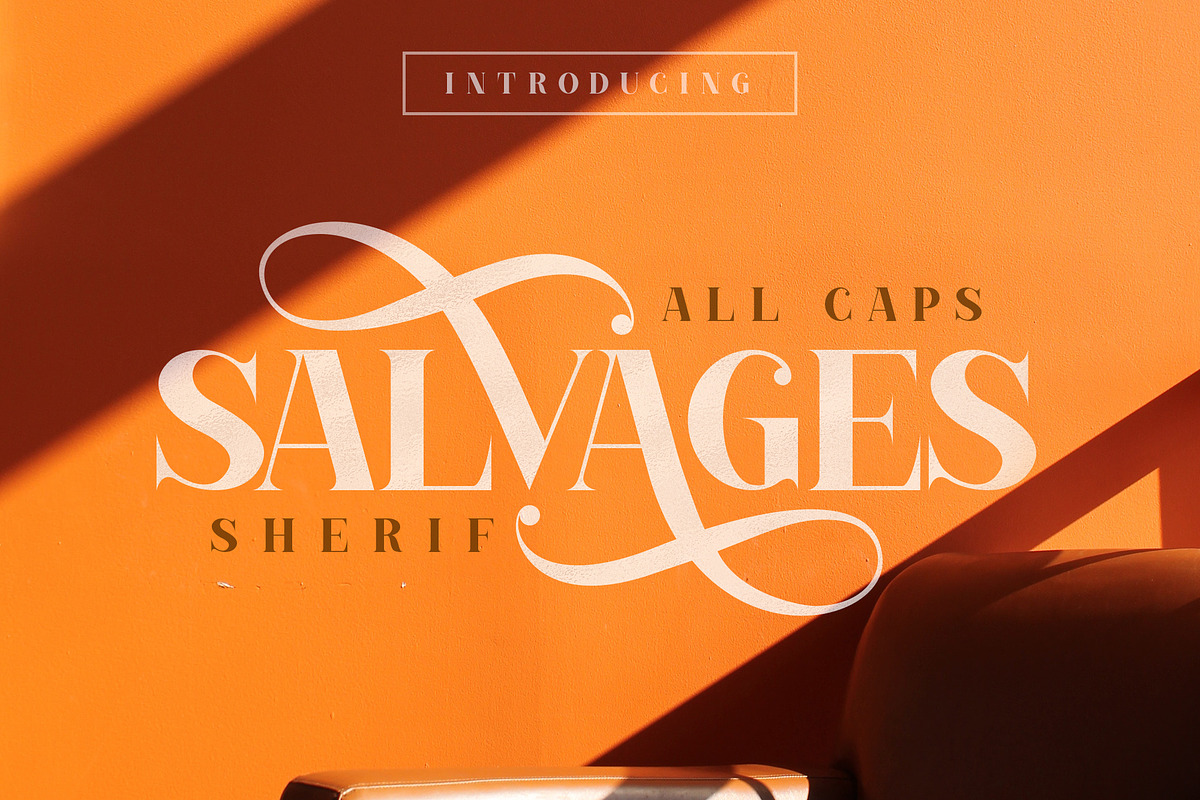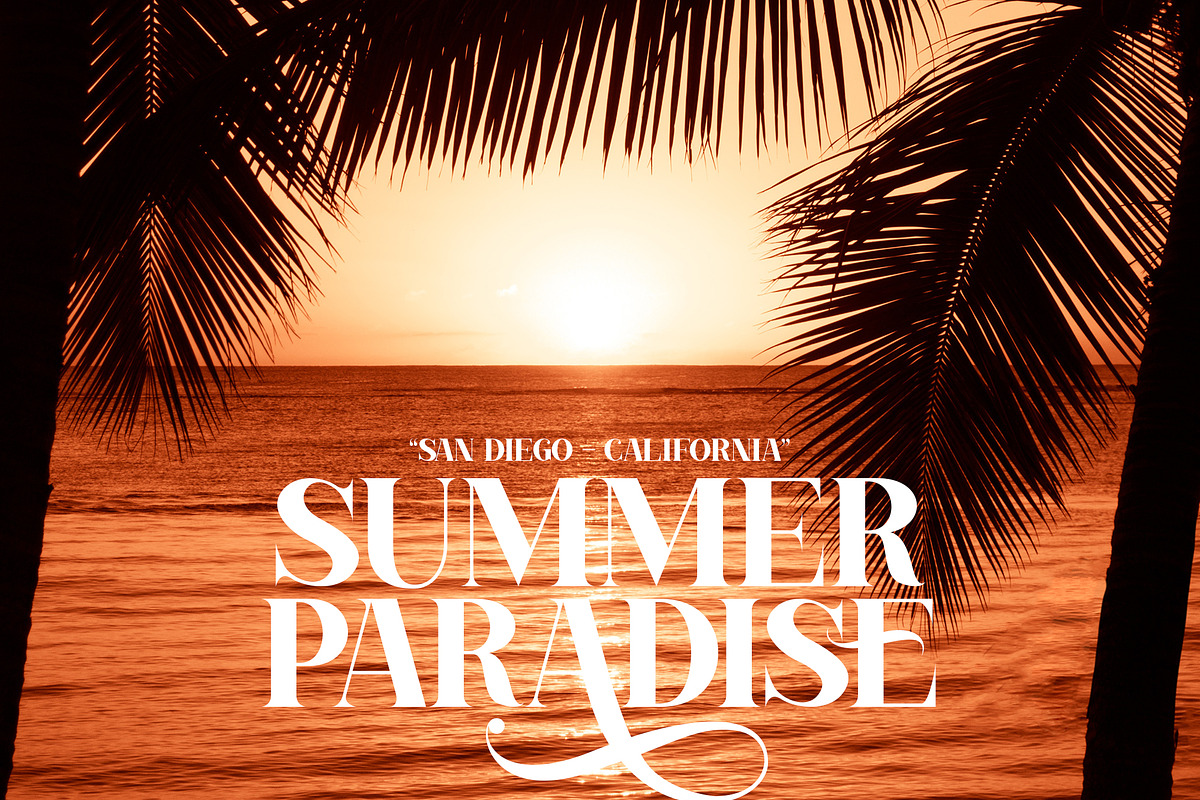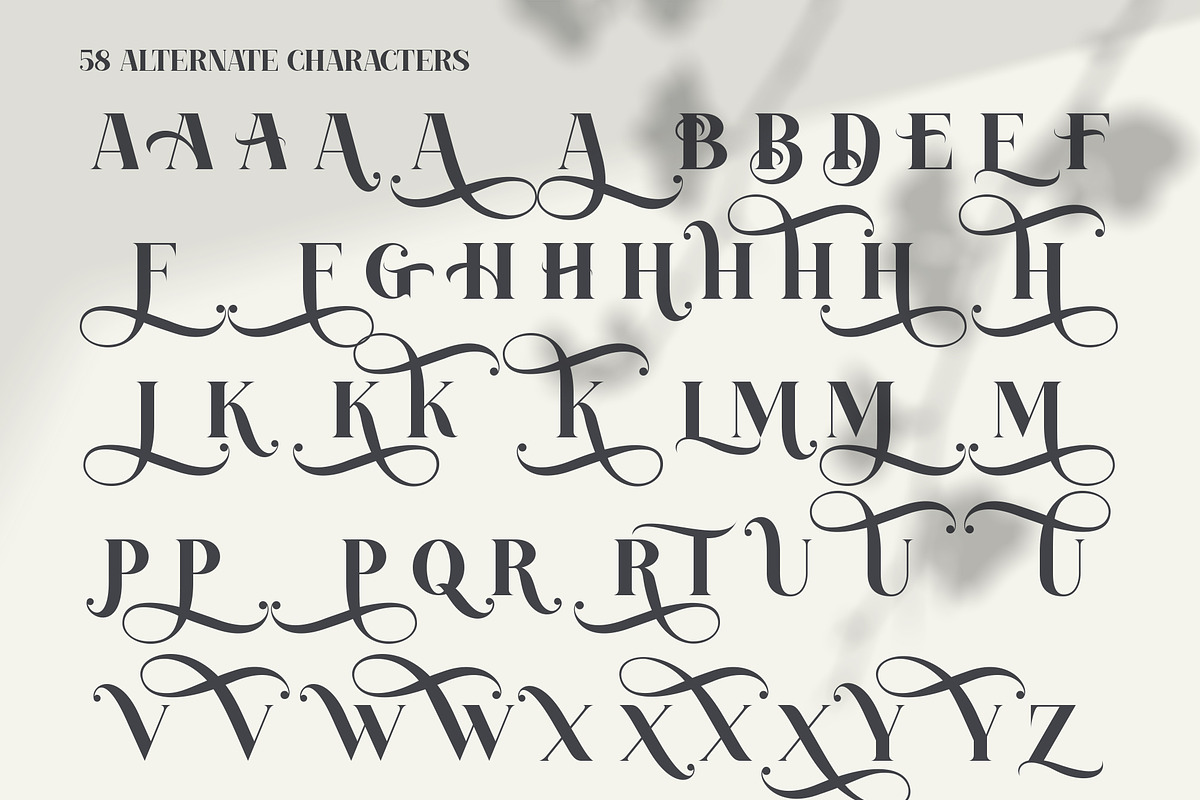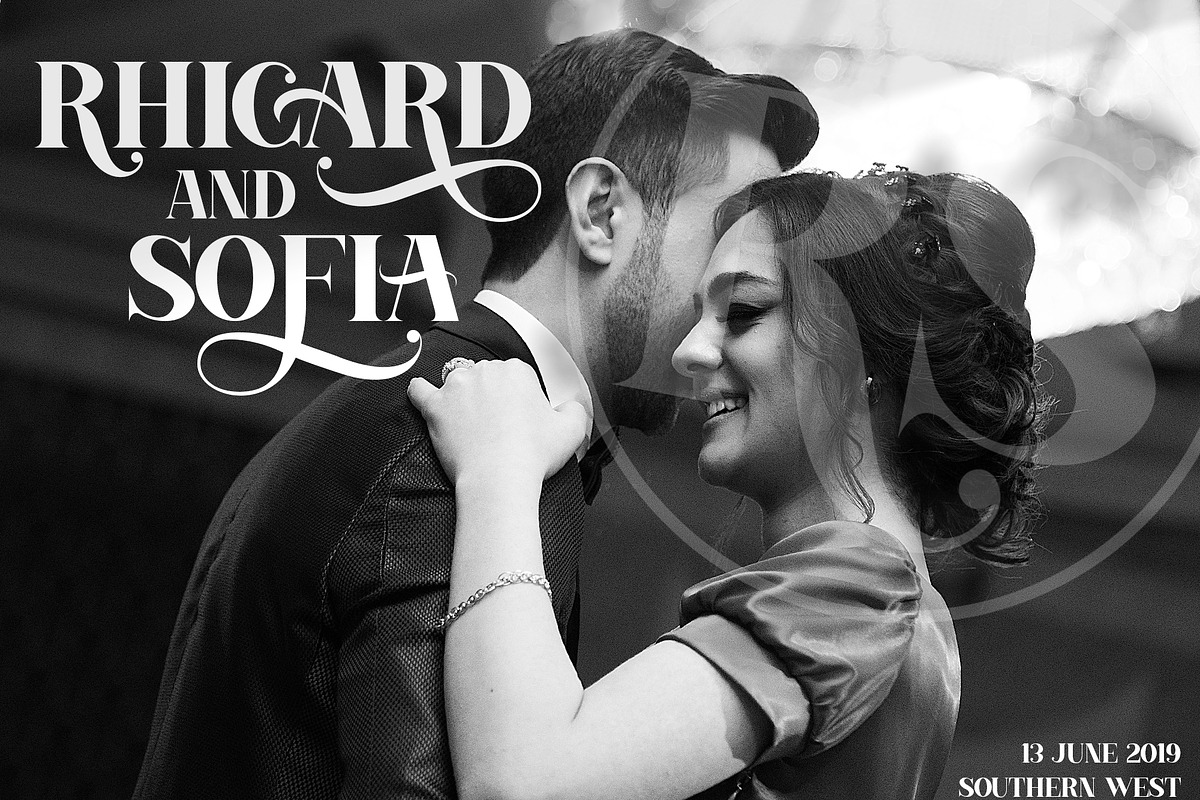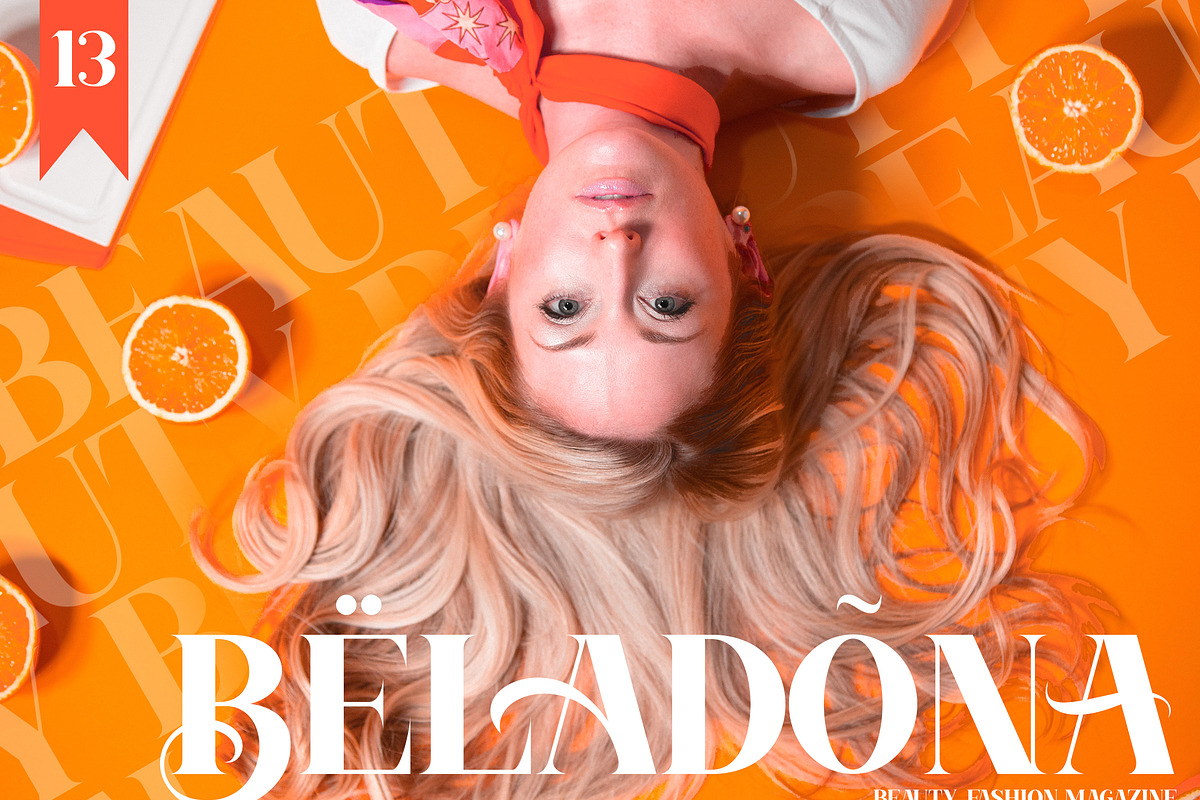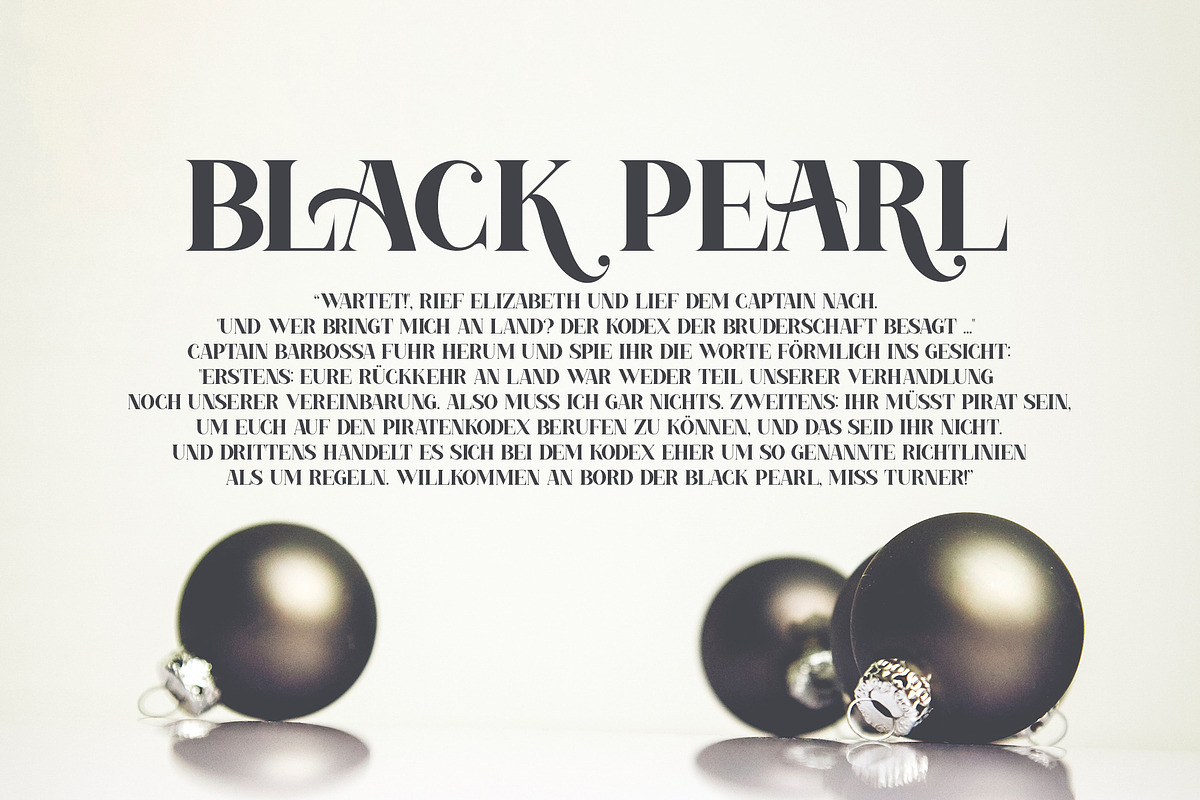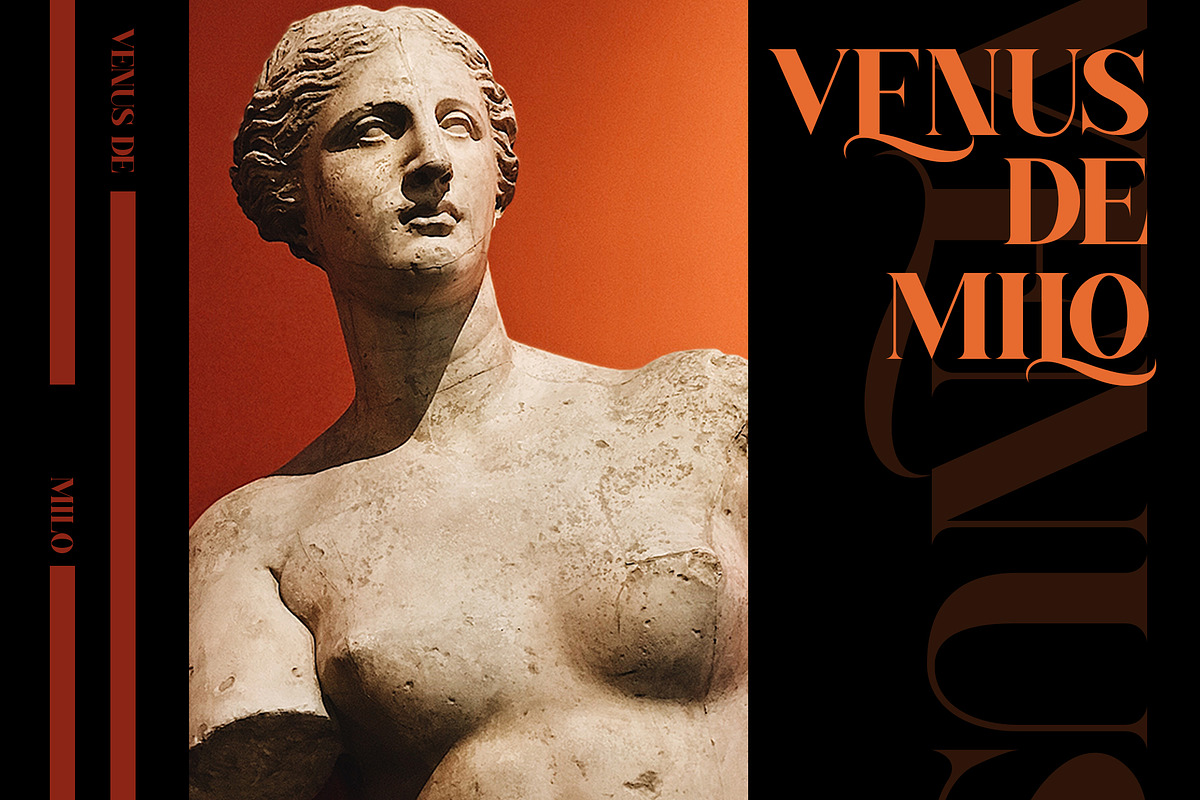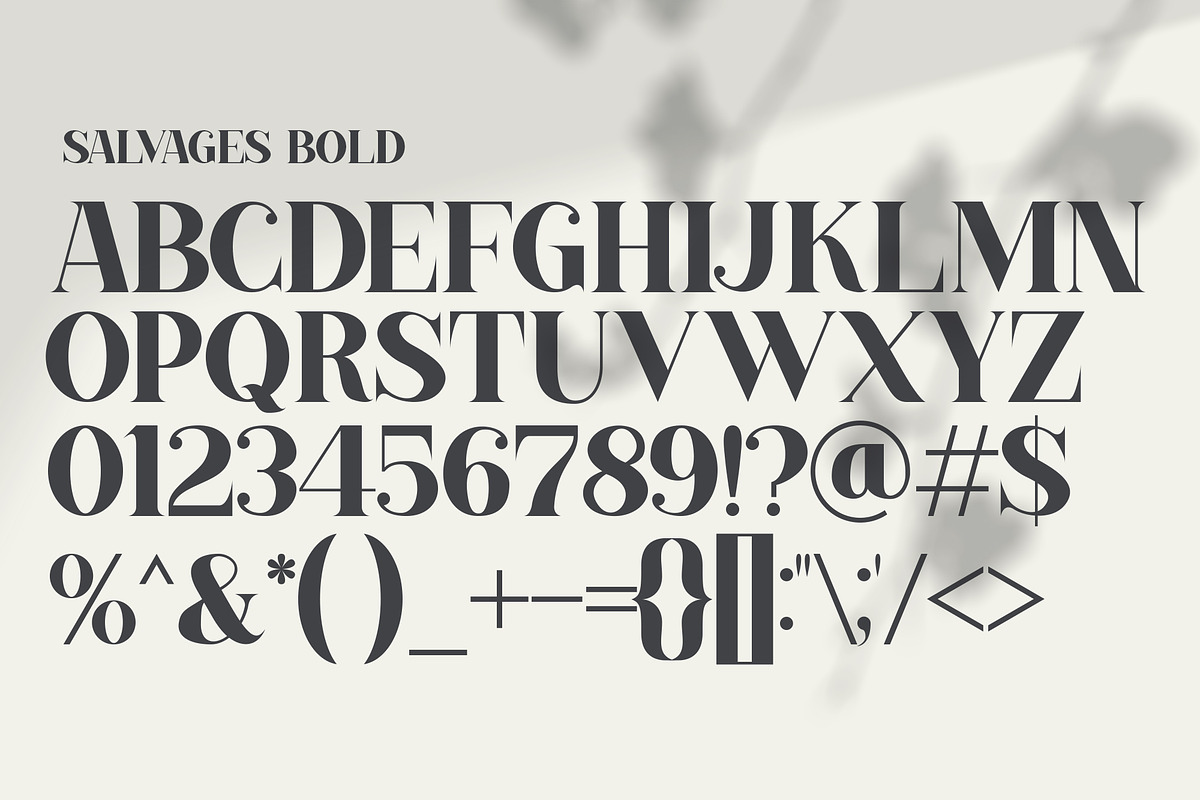
SALVAGES BOLD | SERIF FONT
SALVAGES BOLD SERIF is an elegant font, perfect for logo design, branding, clothing design, signage, posters, wedding invitations and so much more! Also many more alternative characters. ALL IS CAPS SERIF.
It's a nice font but there aren't any actual alternate characters.
I purchased this font because I was interested in the alternative characters as well as the font itself. Unfortunately, this listing only contains the TTF, not the OTF required to use alternative characters. I fully acknowledge I should have paid more attention to what was in the actual download, but the listing's description is misleading; the text as of this review states: "SALVAGES BOLD SERIF is an elegant font, perfect for logo design, branding, clothing design, signage, posters, wedding invitations and so much more! Also many more alternative characters. ALL IS CAPS SERIF. SALVAGES BOLD OTF SALVAGES BOLD TTF" But this listing only includes the TTF, no OTF. Just as an FYI if you are thinking of buying this font. I did attempt to message the artist, but received no reply and it has been weeks now. It is a lovely font, but if you expect to use the alternative characters, note that you don't get them with this listing. Maybe there is another listing I've somehow missed.